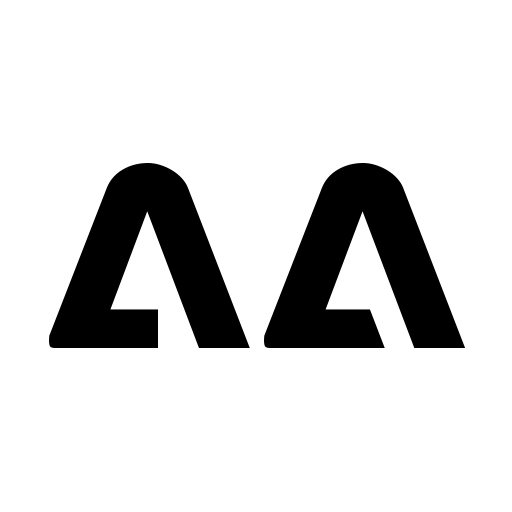
Astrolab is a bold, geometric sans-serif font with a futuristic and technical feel. Its strong, angular letterforms and consistent stroke weight give it a solid, modern appearance that works well for headlines, logos, and branding in tech, sci-fi, and gaming contexts. This font is ideal for designs that need a clean yet distinctive presence with a forward-looking vibe.
Astrolab Font
About Astrolab Font
| Font family | Astrolab Font |
| Designer | NAL |